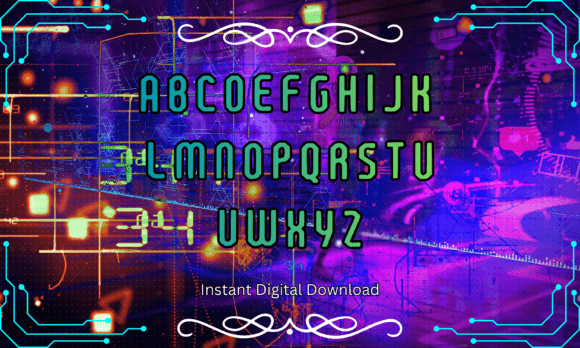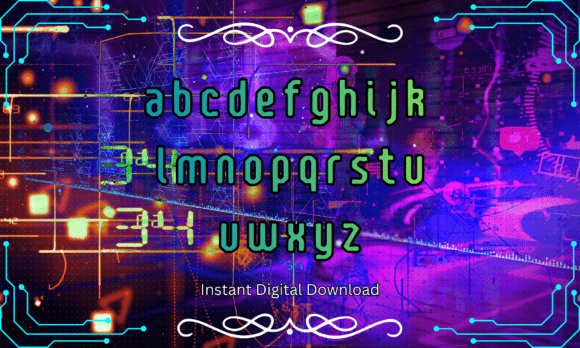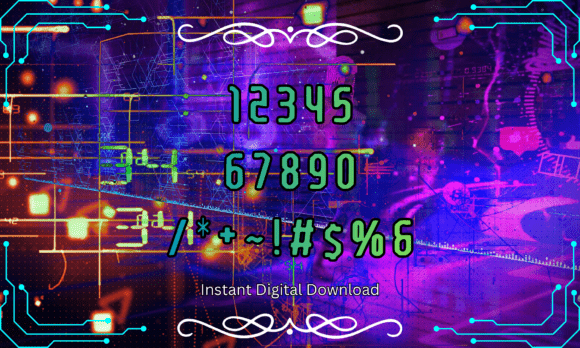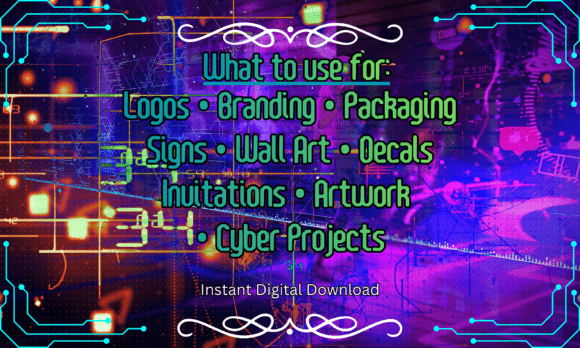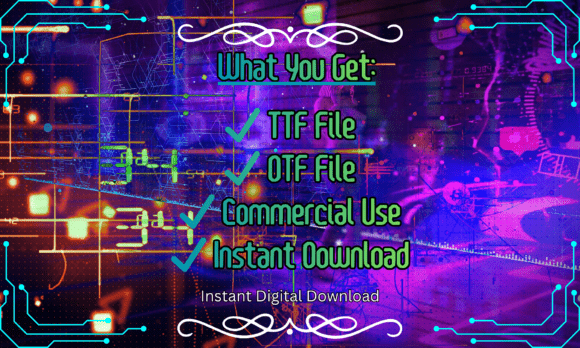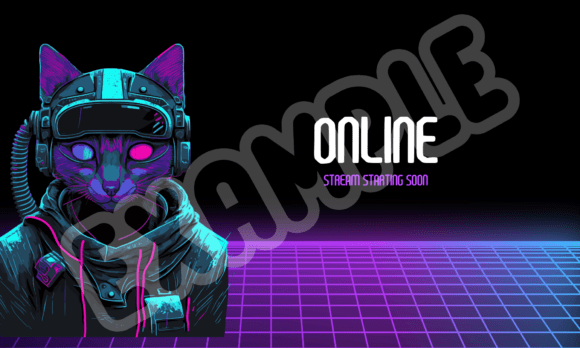
Step into the Digital World with Cyberpunk Font
Have you ever been scrolling through a design community, and suddenly, a font catches your eye, making you stop and stare? That’s exactly what happened to me when I stumbled upon Cyberpunk Font. Its bold, high-energy design seemed to leap off the screen, screaming to be used in the next big project.
Cyberpunk Font is a sticker-style font designed to stand out in neon, tech-inspired designs. With its rounded edges, thick outline, and vibrant cyber aesthetic, this font gives off serious gaming, hacker, and sci-fi vibes. Whether you’re a game developer, a graphic designer, or a social media influencer, this font is a must-have for anyone looking to add a touch of futuristic flair to their designs.
Cyberpunk Font Key Features
- Font Family: Cyberpunk is a futuristic sans-serif font family designed for use in digital interfaces.
- Unique Characteristics: Features a unique blend of futuristic and industrial elements, with geometric shapes and sharp lines, giving it a gritty and high-tech feel.
Cyberpunk Font Review
Cyberpunk Font is a visually striking typeface that captures the essence of a futuristic world. It works well in situations where a bold, edgy aesthetic is desired. ✨ The font’s unique blend of digital and analog elements creates a sense of tension and dynamism, making it perfect for cyberpunk-themed projects. ✨ The font’s weight and contrast are well-balanced, allowing for clear readability even in smaller sizes. ✨
However, the font has some limitations. ⚠️ One of the main issues is its limited language support, which may make it less suitable for projects that require a wide range of languages. ⚠️ Additionally, the font’s bold and distressed styles may be overwhelming in certain contexts, requiring careful consideration of the design. ⚠️ The font’s spacing and kerning may also require some manual adjustment to achieve optimal results. ⚠️
Cyberpunk Font is a solid choice for designers looking to add a touch of futurism to their projects. While it may not be the most versatile font, its unique style and bold aesthetic make it a great option for cyberpunk-themed designs. With some careful consideration and adjustment, Cyberpunk Font can be a valuable addition to any designer’s toolkit.
The Cyberpunk Font is commonly used in:
- Science fiction and cyberpunk-themed designs.
- Neon-lit cityscapes and futuristic landscapes.
- Video game and movie title designs.
- Dark and edgy branding and marketing materials.